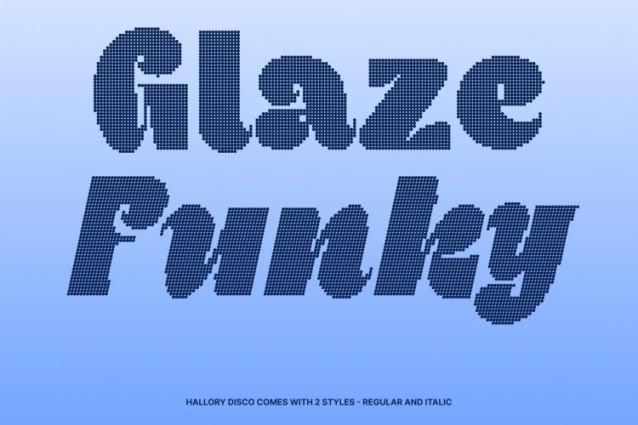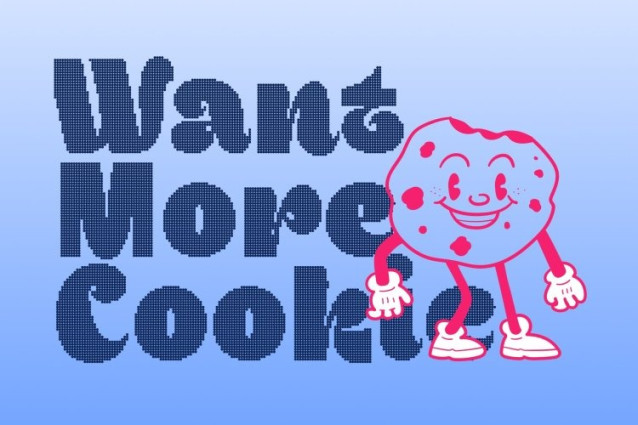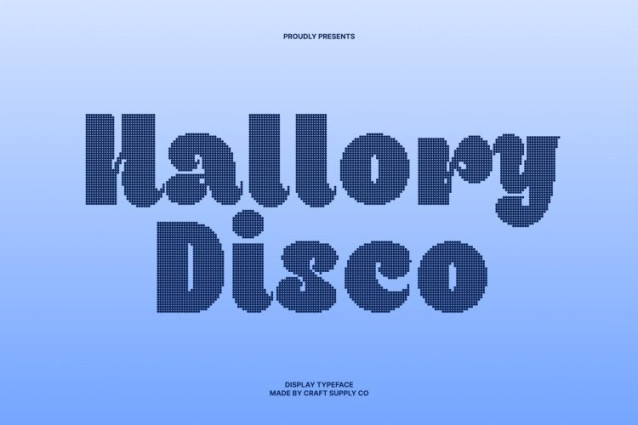
Hallory Disco Font
Hallory Disco Font This is a delightful display font designed with a playful, cute personality that instantly brings smiles. Its rounded, friendly shapes feel lighthearted and fun, making it perfect for designs that want to radiate joy and warmth.
Cheerful Style for All Ages
With its bright and happy character, effortlessly appeals to both children and adults. The font’s approachable and lively design creates a welcoming atmosphere, making it suitable for a wide range of audiences and creative themes.
Perfect for Cheerful and Festive Displays
Inspired by upbeat moods and festive moments, Hallory Disco adds a joyful rhythm to any display. Its fun-loving appearance feels energetic and celebratory, ideal for designs that aim to uplift and entertain.
Versatile, Fun, and Full of Personality
From posters and invitations to branding and creative promotions, adapts beautifully across projects. Its playful design adds charm, personality, and a hint of festive flair, ensuring your visuals stand out with positivity and delight.